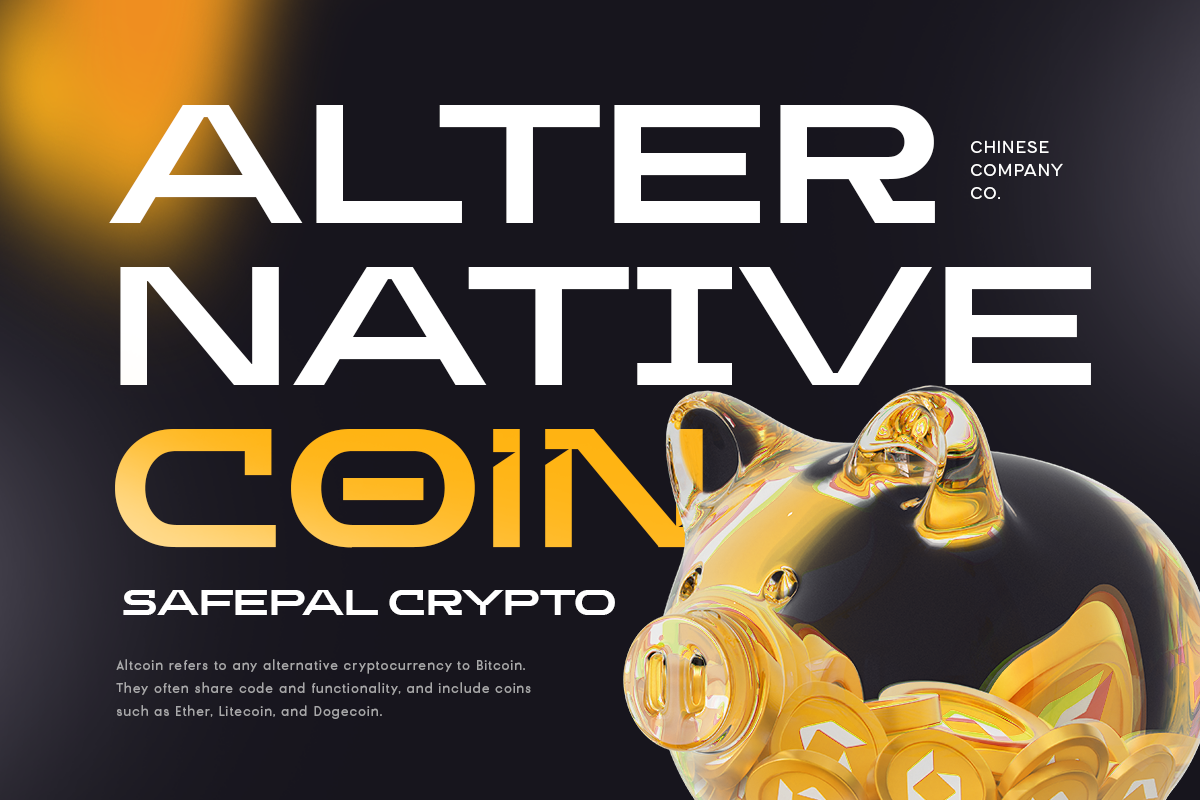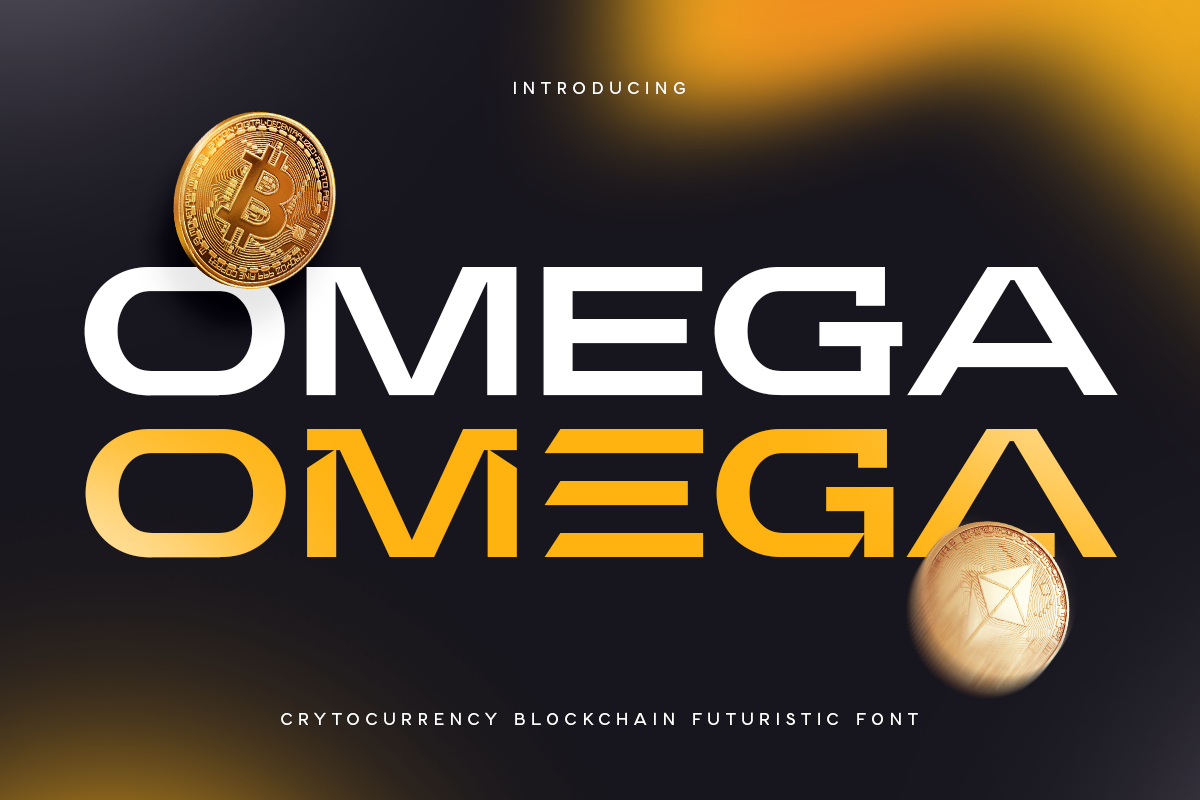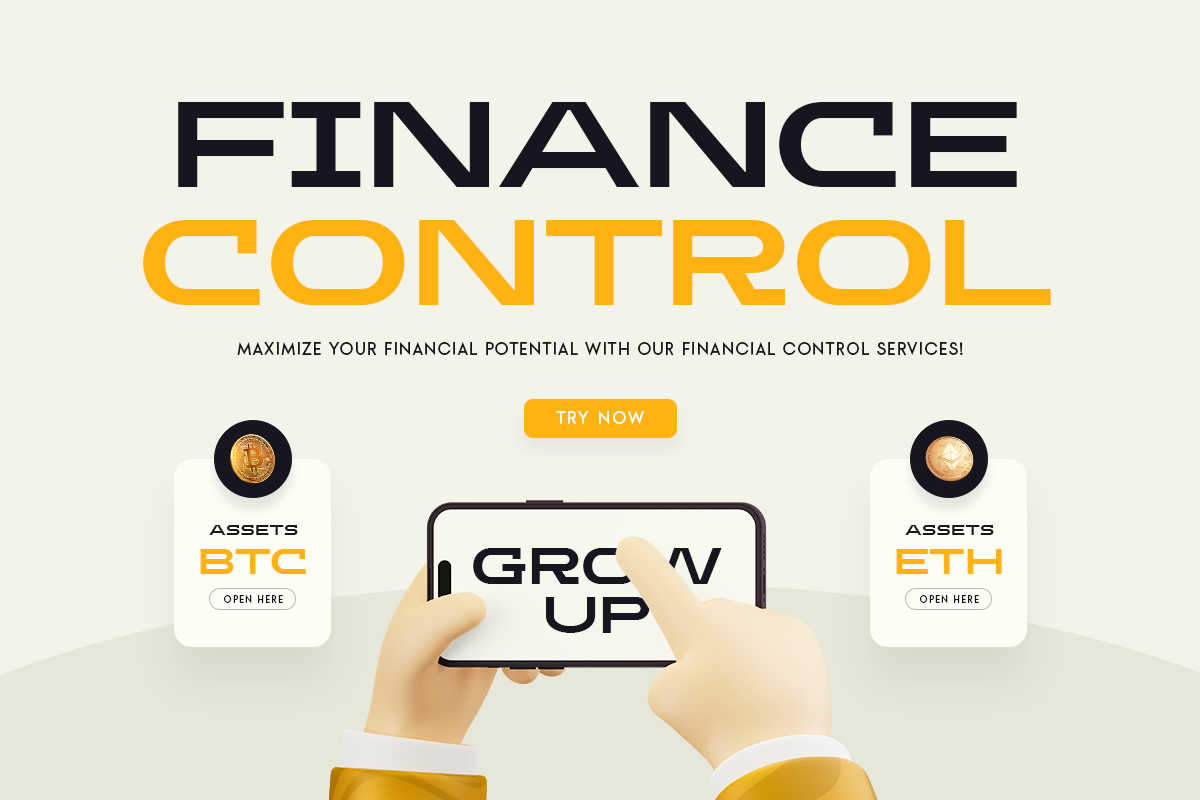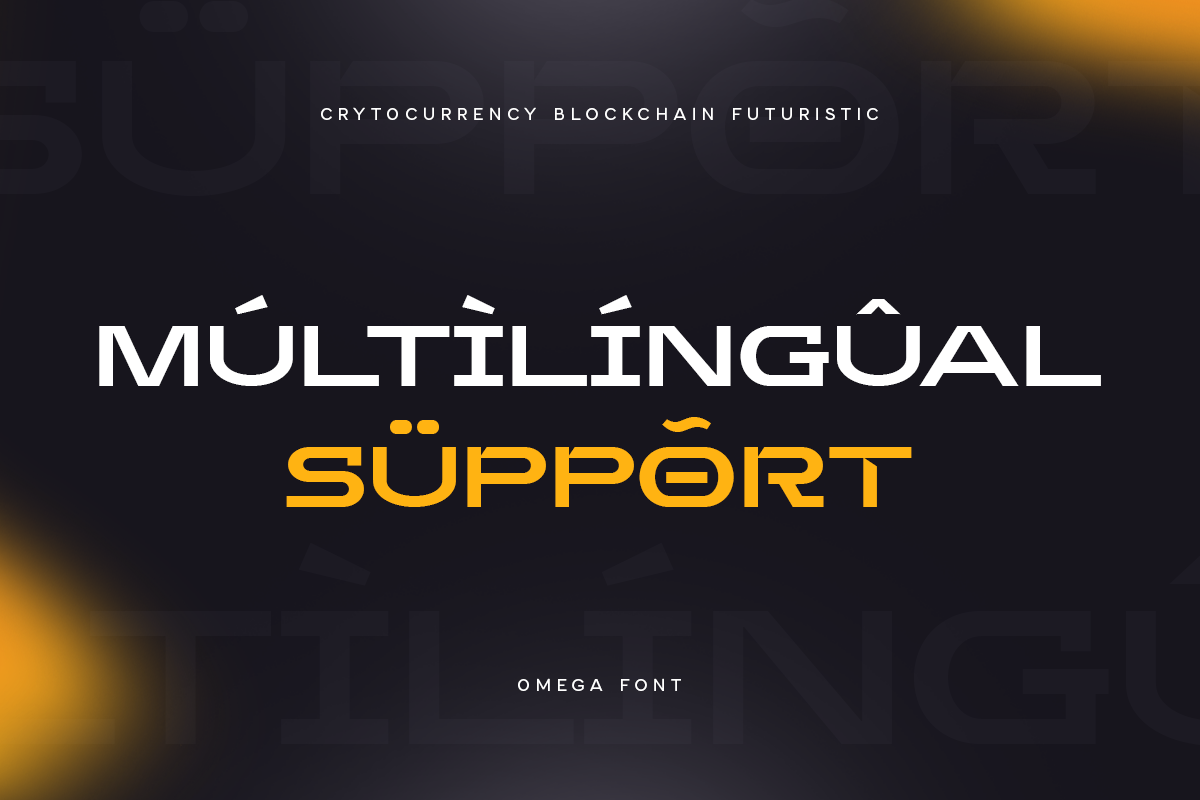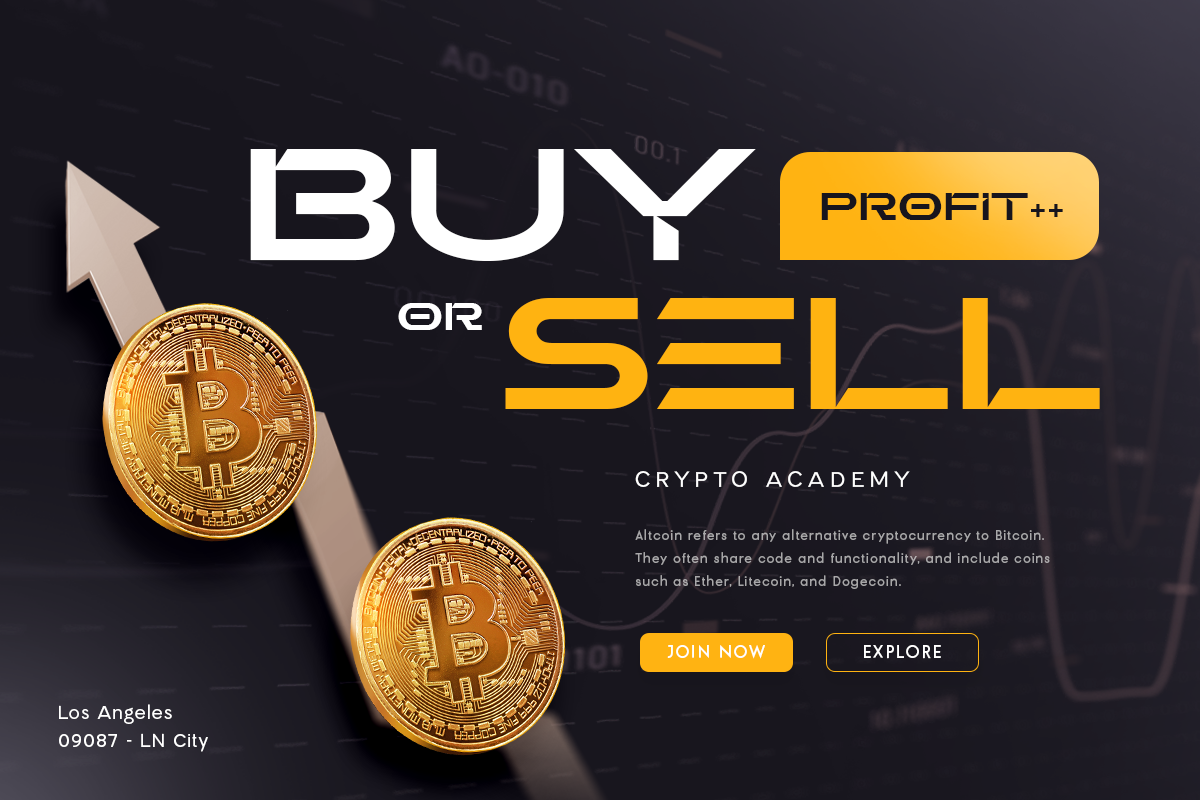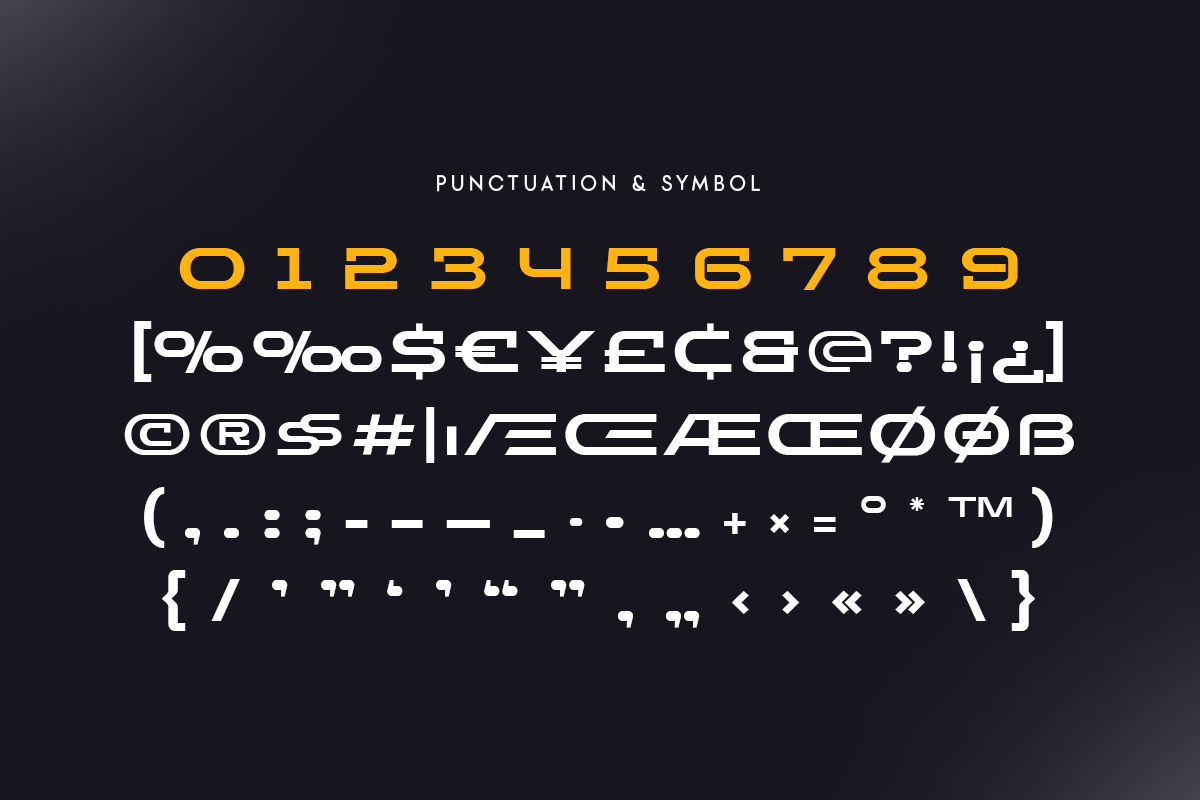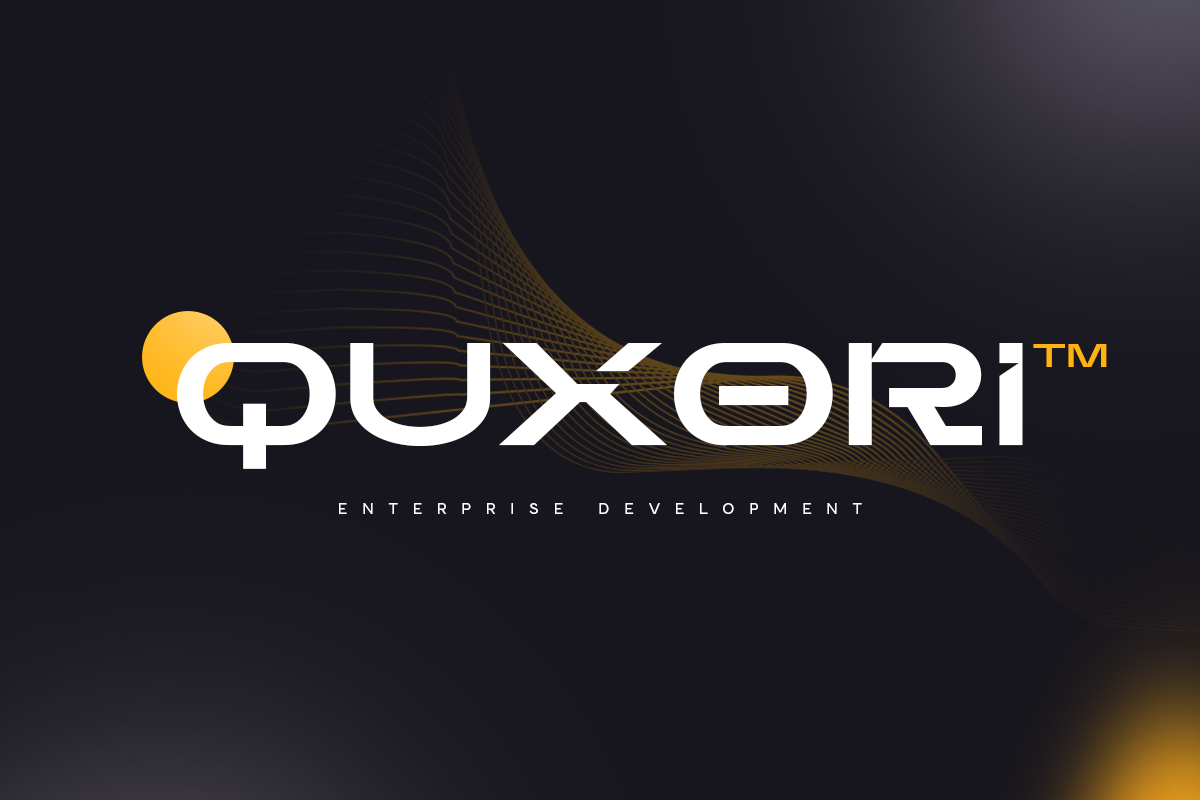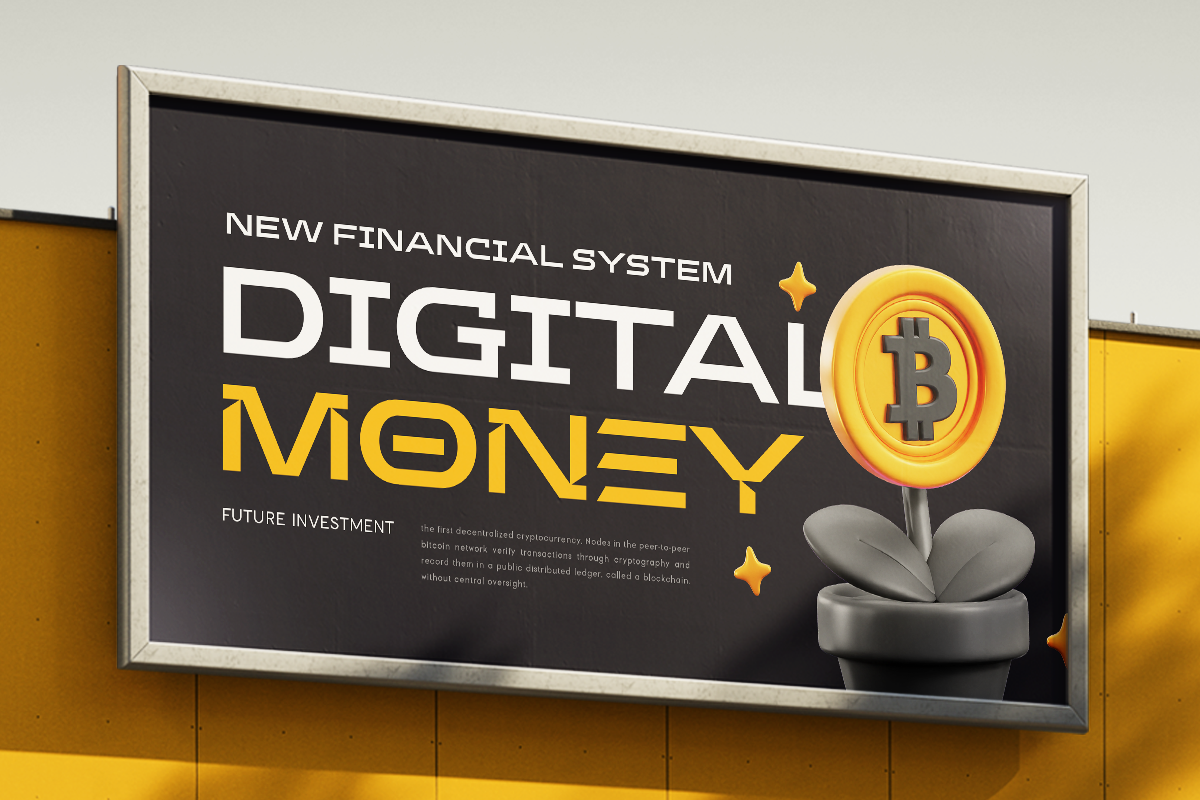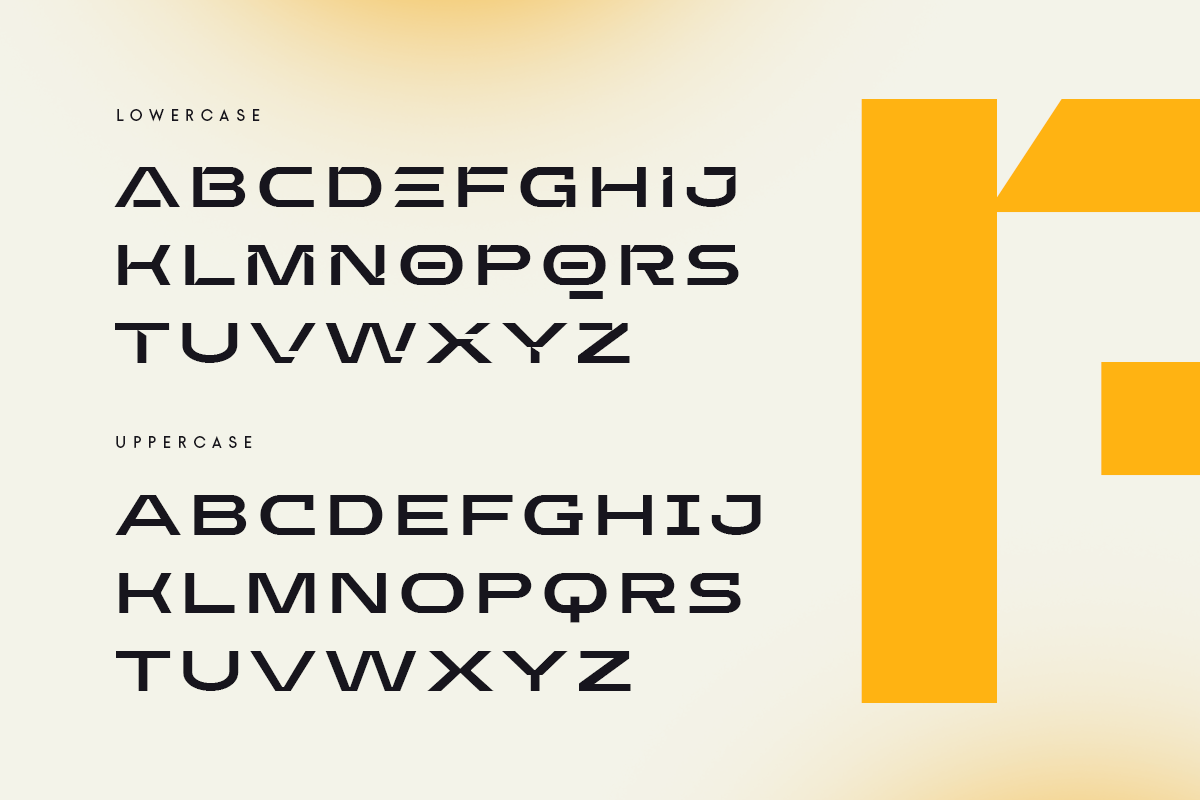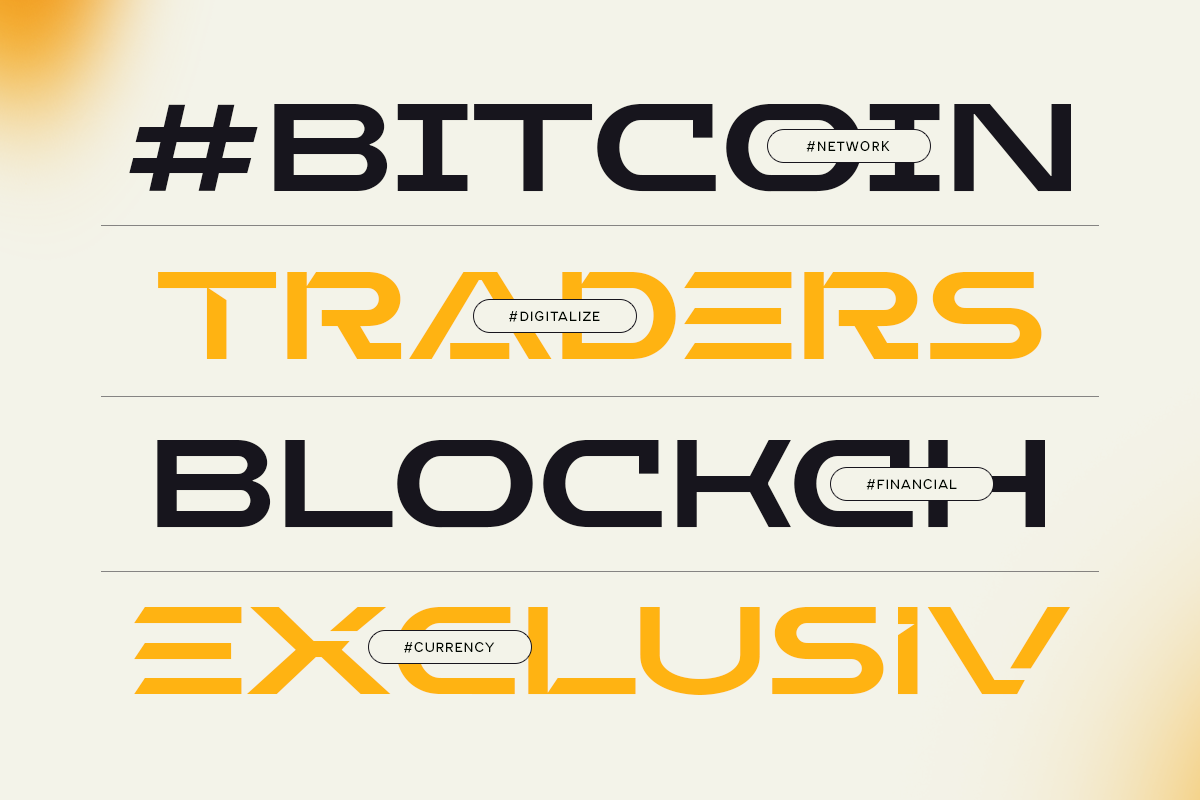
Omega - Futuristic Font
Omega is A Cryptocurrency Blockchain Futuristic Font created specifically for Sci-fi, Modern, and Technology designs. Its unique, futuristic styles make your typography stand out, ideal for Cryptocurrency, technology, film, and Sci-fi themes. Omega's modern aesthetics bring a tech-inspired feel to any project, perfect for expressing your main ideas.
Omega Cryptocurrency Blockchain Futuristic Font features:
- Sleek, futuristic characters designed for Technology-themed creativity
- Includes special Technology and Sci-fi characters
- Perfect for headlines, posters, branding, and digital art
Enhance your designs with Omega's cutting-edge style and make your projects shine. Enjoy the futuristic touch Omega brings to your work!